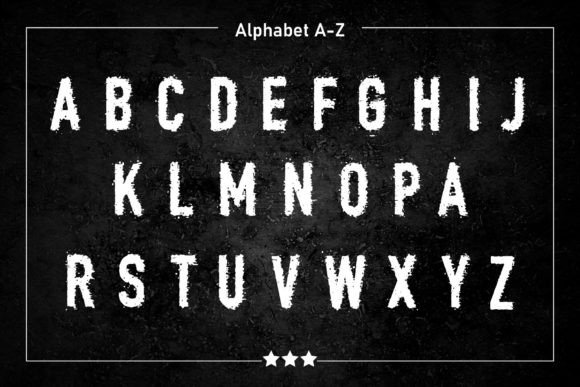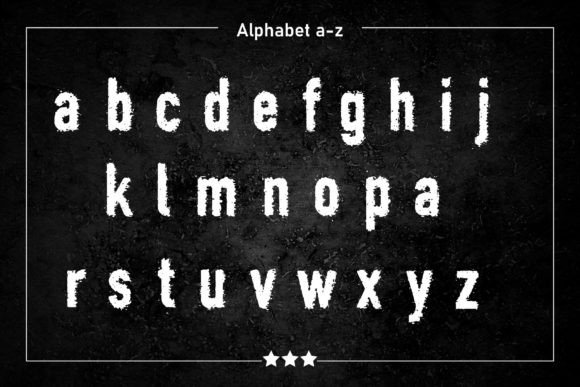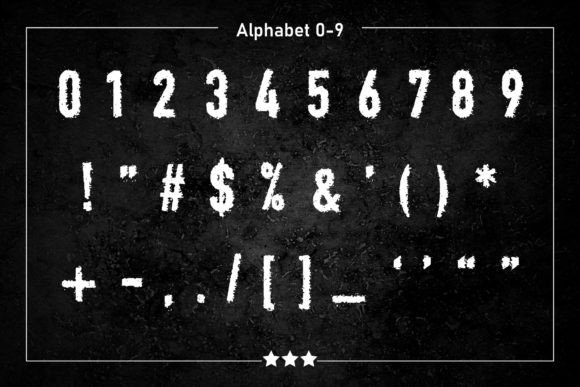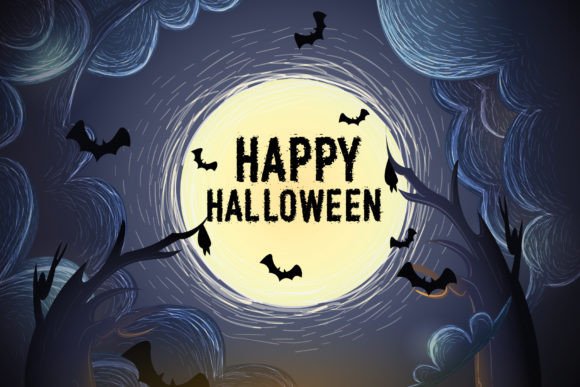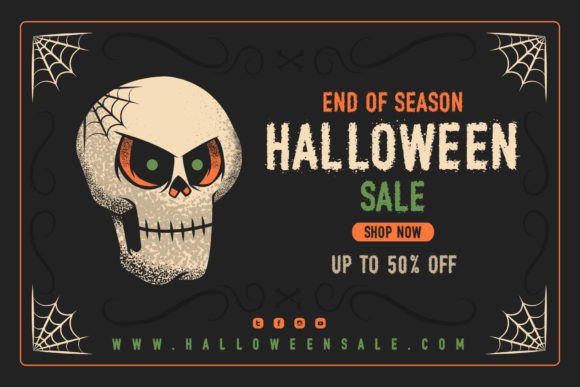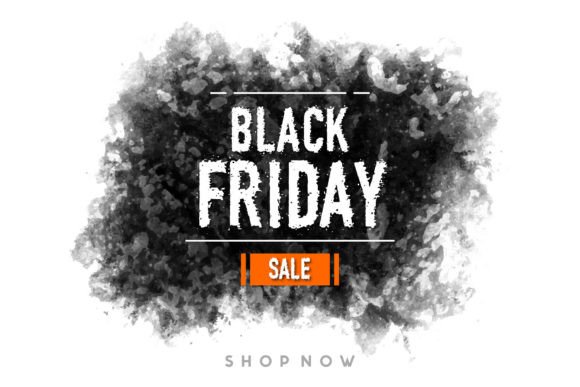
The Birth of a New Design Era
Do you ever find yourself stuck in a creative rut, struggling to come up with the perfect design for a project? You’re scrolling through fonts, trying to find the perfect fit, but nothing seems to capture the essence of your vision. That’s where Broken Font comes in – a game-changing font designed to break free from the ordinary and unleash your creativity.
Broken Font is more than just a font, it’s a tool for designers to express themselves and bring their ideas to life. Whether you’re creating spooky Halloween designs, heartfelt special day cards, or eye-catching social media posts, Broken Font has got you covered. Its versatility makes it perfect for a wide range of projects, from logos and print designs to website headers and photo frames.
Broken Font Key Features
- Broken Glyphs: The font features intentionally broken or distorted glyphs, creating a unique and quirky aesthetic.
- Customizable: Users can adjust the level of distortion and brokenness to suit their design needs.
- Font Pairing Suggestions: The font includes pairing suggestions for optimal use with other fonts and typography systems.
Review of “Broken Font”
Overall, I think “Broken Font” has a lot of potential, but it falls short in some key areas. ✨
- Unique, edgy design aesthetic that’s perfect for artistic or avant-garde projects.
- Excellent for creating a sense of tension or unease, which can be great for projects that need a bold statement.
- Highly customizable, allowing users to tweak the font to fit their specific needs.
However, there are some limitations to consider. ⚠️
- Can be difficult to read in certain contexts, particularly for large blocks of text.
- Lacks consistency in terms of letter spacing and kerning, which can make it look amateurish at times.
- Not suitable for projects that require a clean, professional look.
Overall, I’d give “Broken Font” 3 out of 5 stars. While it’s a great choice for certain projects, it may not be the best fit for everyone. With some tweaks and refinements, it could be a truly standout font – but as it stands, it’s more of a niche product.
Broken Font: A Creative Text Effect
To get the most out of Broken Font, try the following:
- Combine it with other text effects, such as outlines or shadows.
- Use it to create a sense of urgency or drama in your design.
- Experiment with different font styles and colors to achieve a unique look.
Broken Font is commonly used in:
- Marketing materials, such as posters and flyers.
- Social media graphics and advertisements.
Alternatives to Broken Font for Designers
1. Trapped Text
Trapped Text is a design element used to visually convey a sense of being ‘trapped’ or ‘stuck’. It’s often used to represent a feeling of frustration or being confined. When to use: Use Trapped Text in situations where you want to convey a sense of confinement or frustration, such as in a warning or alert message.
Comparison to Broken Font: While Broken Font implies a sense of failure or malfunction, Trapped Text suggests a sense of being trapped or confined, making it a more nuanced alternative.
2. Distressed Text
Distressed Text is a design element used to create a worn, aged, or weathered look. It’s often used to give a sense of history or nostalgia. When to use: Use Distressed Text in situations where you want to create a sense of nostalgia or retro feel, such as in a historical or vintage-themed design.
Comparison to Broken Font: While Broken Font implies a sense of failure or malfunction, Distressed Text suggests a sense of age or wear, making it a more suitable alternative for designs that require a nostalgic or retro feel.
Project 1: Distressed Urban Graffiti
Project 2: Steampunk-Inspired Typographic Poster
Project 3: Retro-Futuristic Sci-Fi Title Sequence